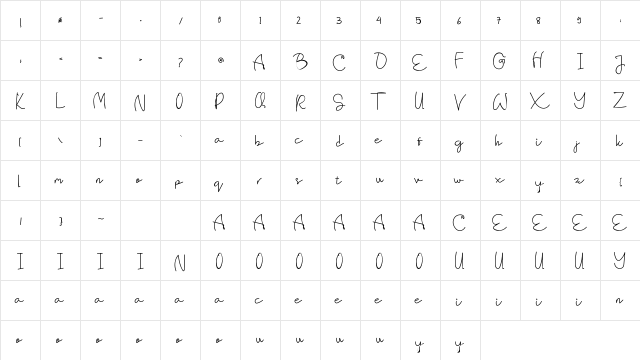
JuwitaNightpersonalu Regular
| Designer | rozi |
JuwitaNightpersonalu is a composed and adaptable typeface that performs quietly and consistently across a wide range of design contexts.